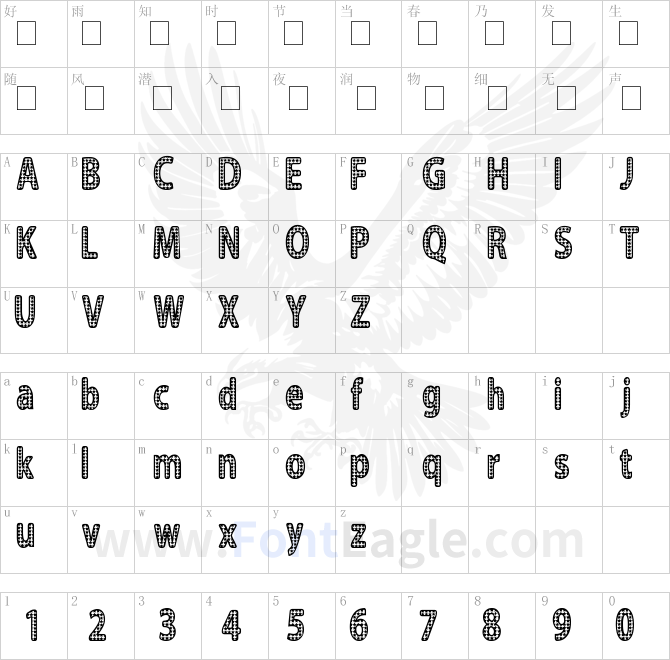
Blinger is a great font, widely used in graphic design, single-page menu design, poster design and other fields, and is deeply loved by designers.Blinger download.